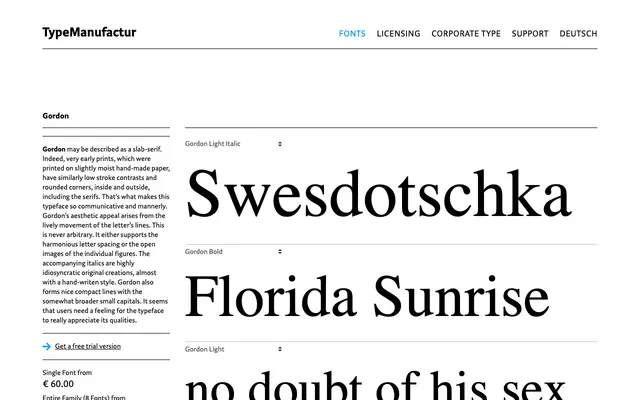
A three-weight serif with small caps and italics, designed for sustained text setting in literary and editorial contexts.
Gordon offers Light, Regular and Bold weights, each with matching italics and small caps, giving it a modest but complete set of tools for book and editorial work. The specimen texts drawn from literary sources suggest an intent towards long-form reading. Without condensed or display cuts, it sits squarely as a text serif rather than a versatile family.
The presence of small caps, italics, and a structured weight range alongside the formal text specimens suggests a transitional or classical serif design suited to literary and editorial setting.